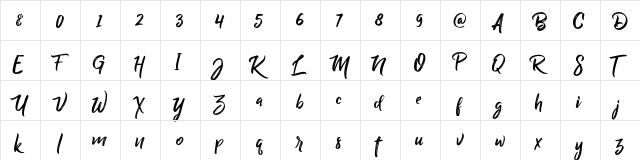
Billy Ohio Regular
| Foundry | Alit Design |
| Designer | Alit Suarnegara |
Design Context for Billy Ohio Typeface
Billy Ohio is a composed and adaptable typeface that performs quietly and consistently across a wide range of design contexts.